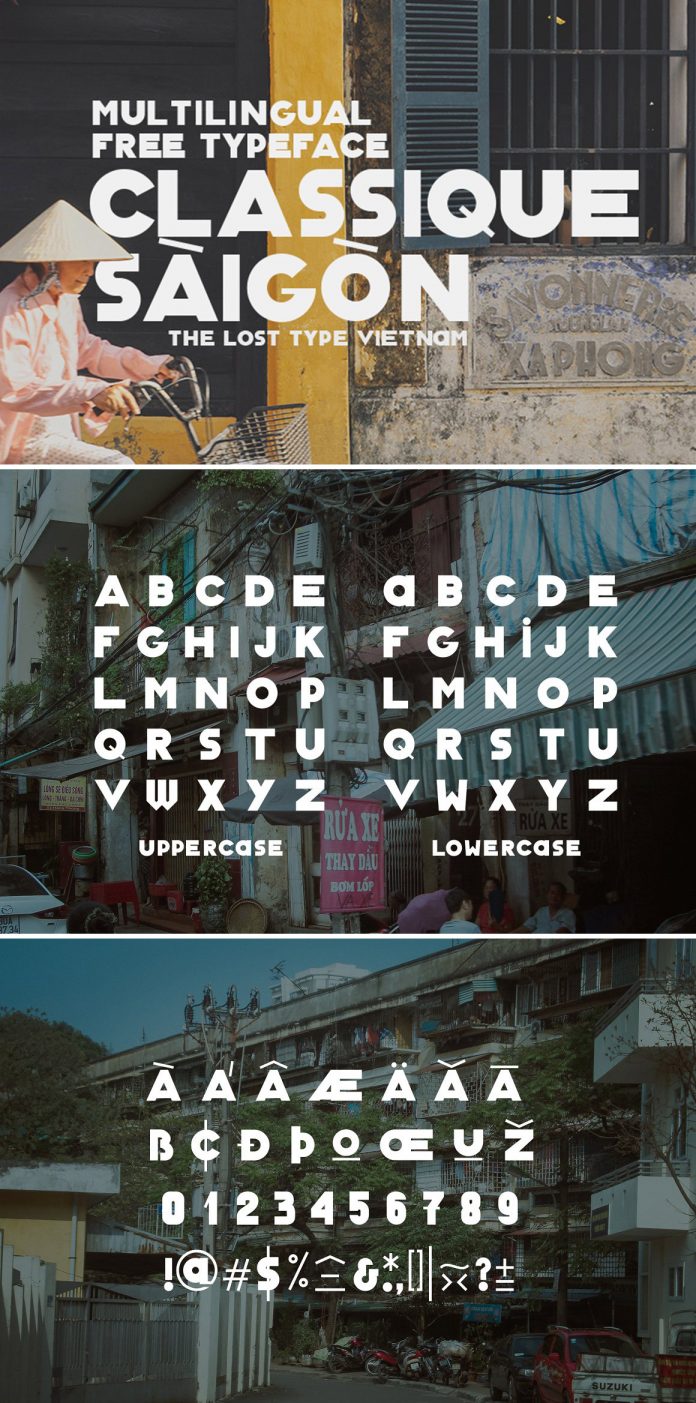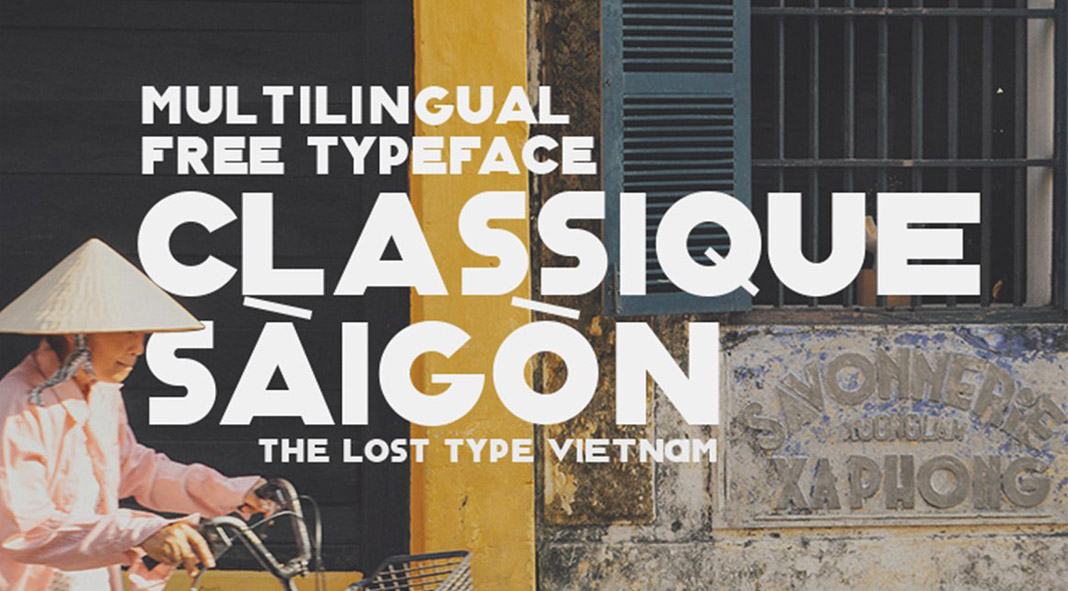
Classique Saigon, a thick, geometry-affected, multilingual display sans serif typeface inspired by retro hand-drawn styles.
The Classique Saigon typeface was created by Manh Nguyen, a Vietnamese font designer with a passion for hand-drawn classic panels and banners from the last century.
Classique Saigon is a thick, geometry-affected, multilingual display sans serif typeface inspired by retro hand-drawn styles. The font masterfully combines this vintage aesthetic with modern elements. A demo version is currently available for free download. For further information on all features, just click on the following link.